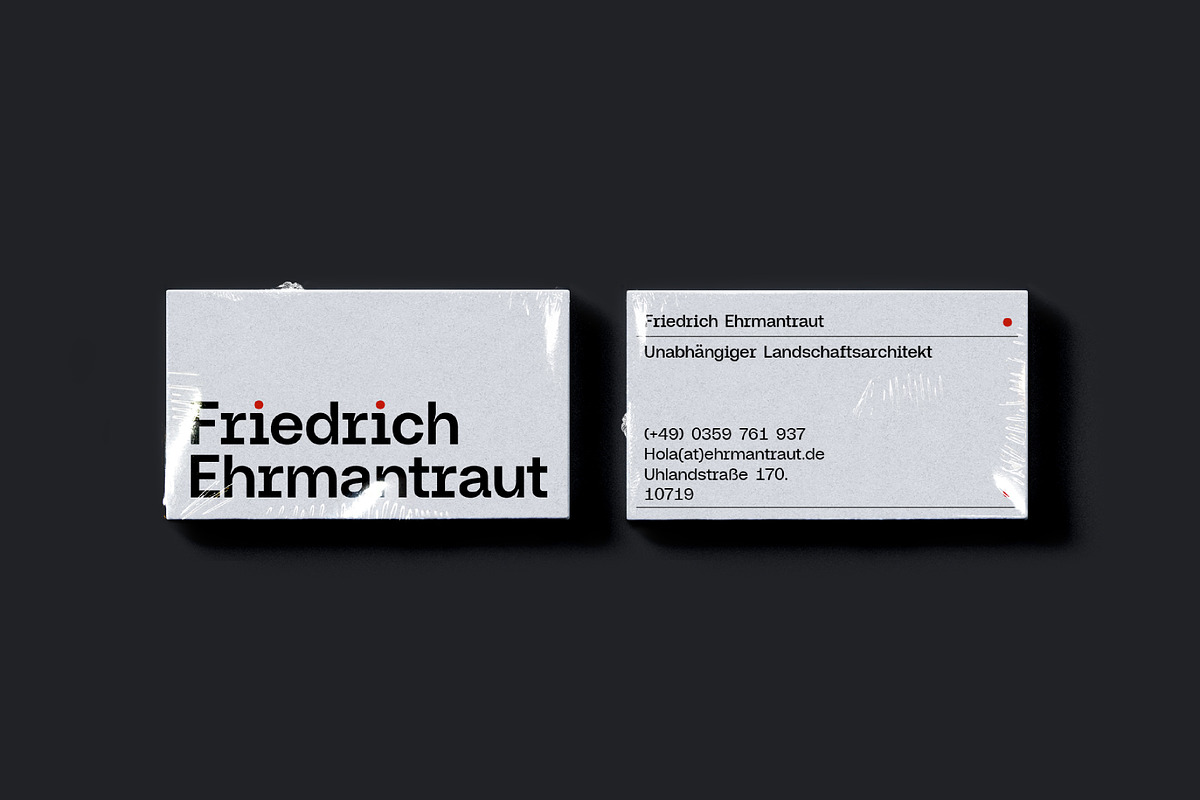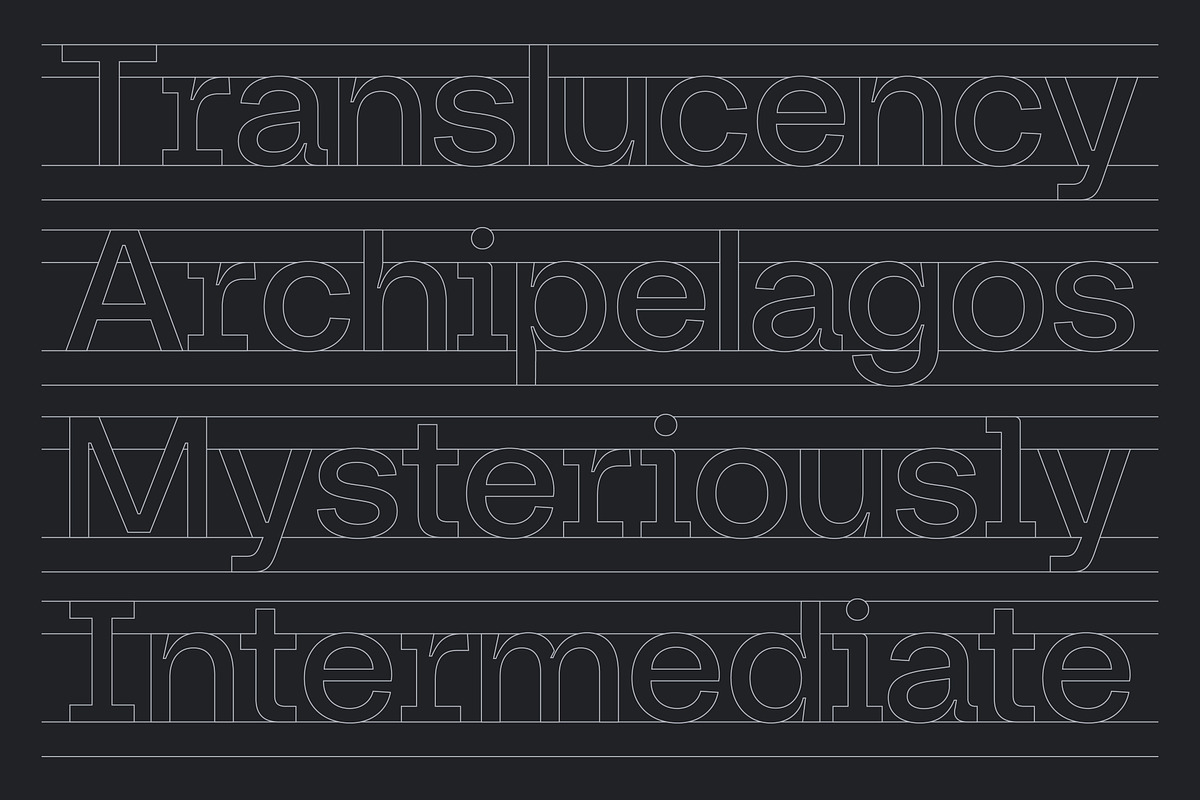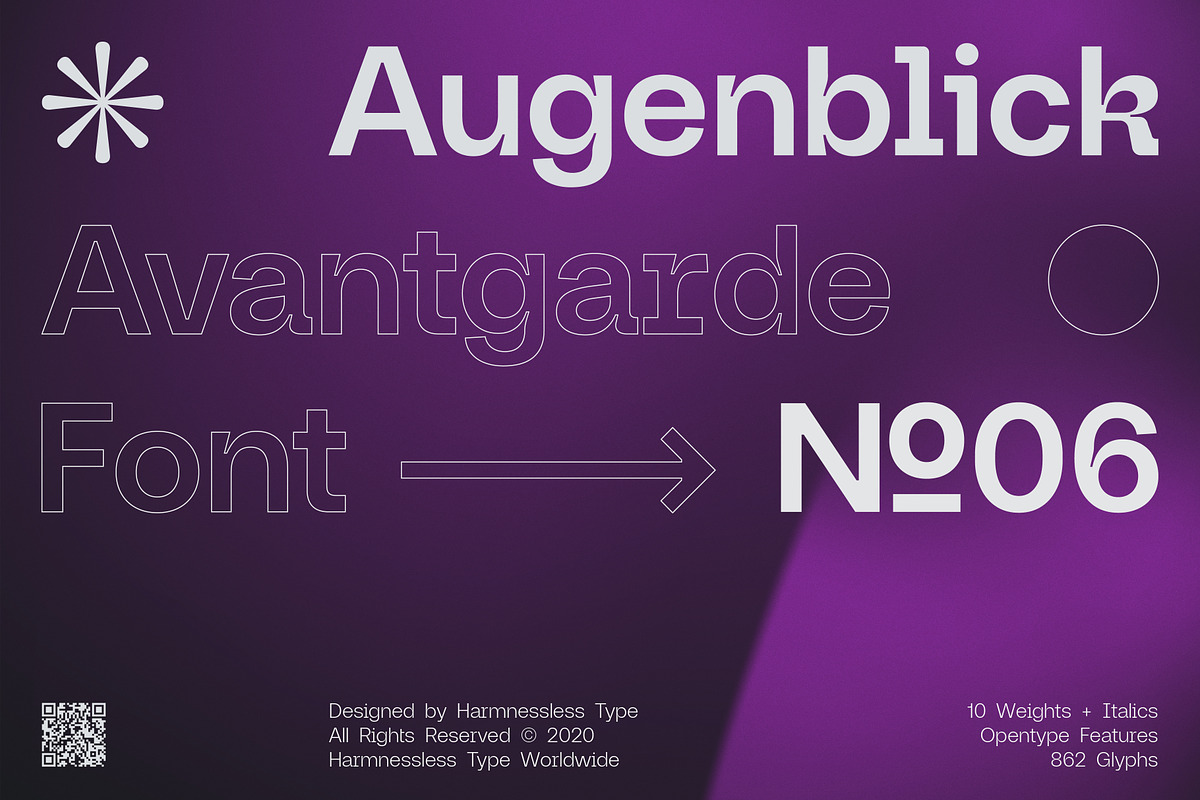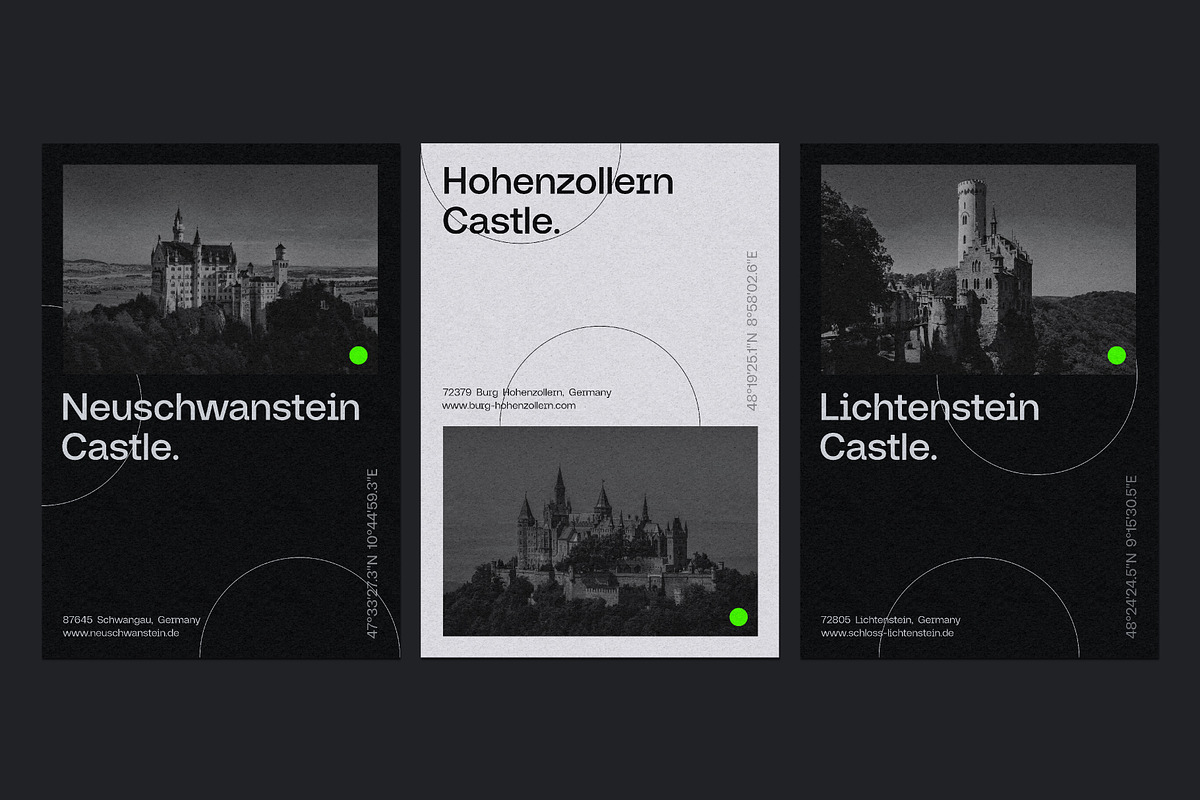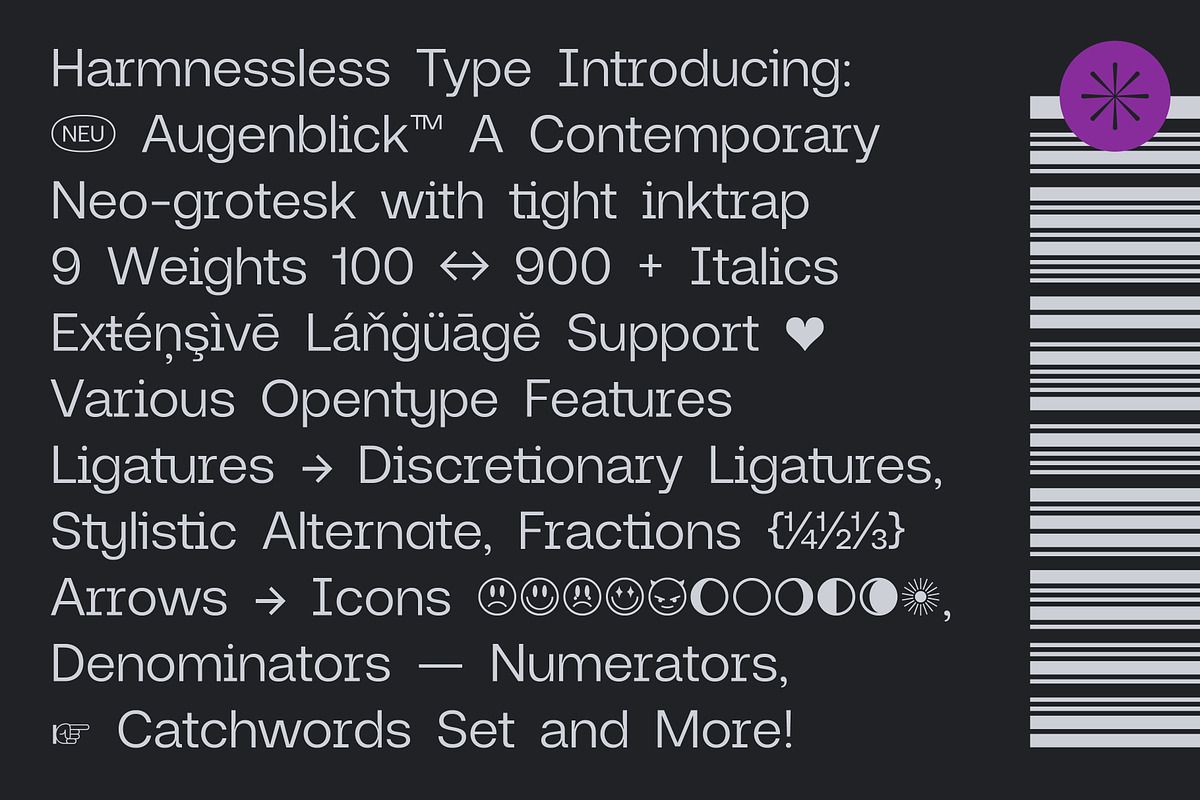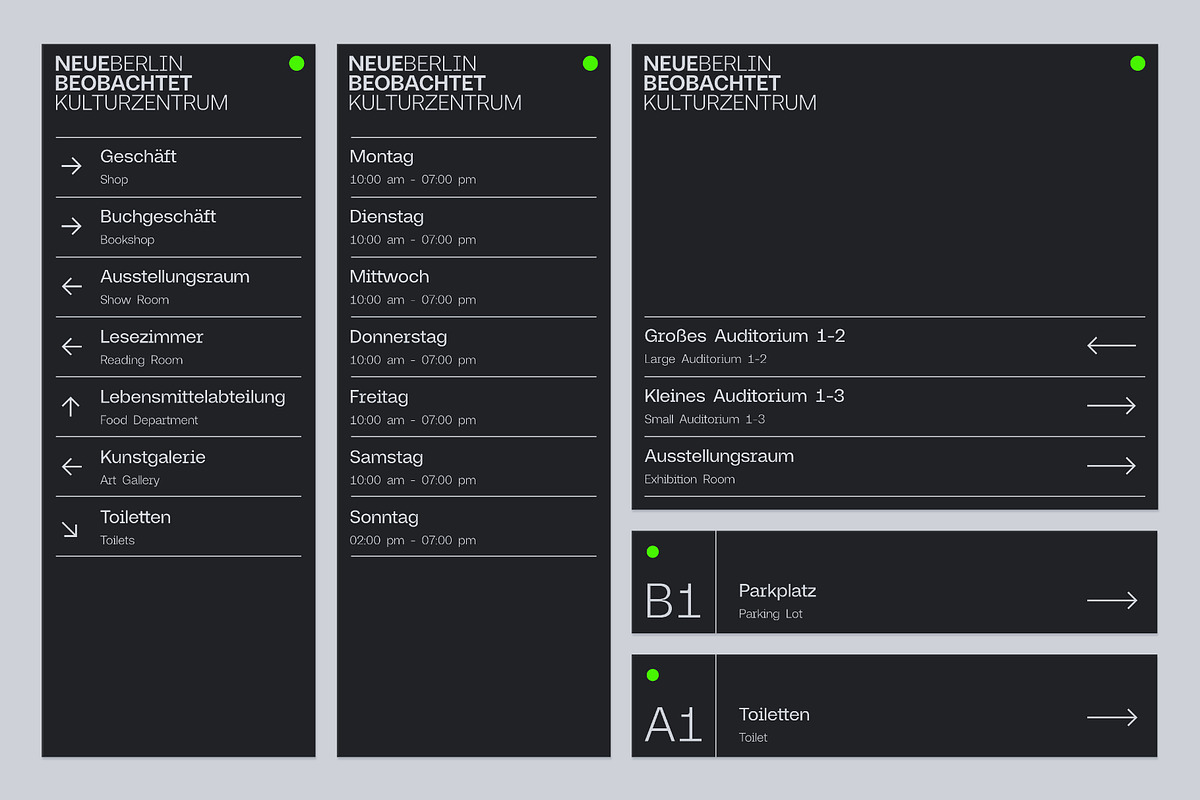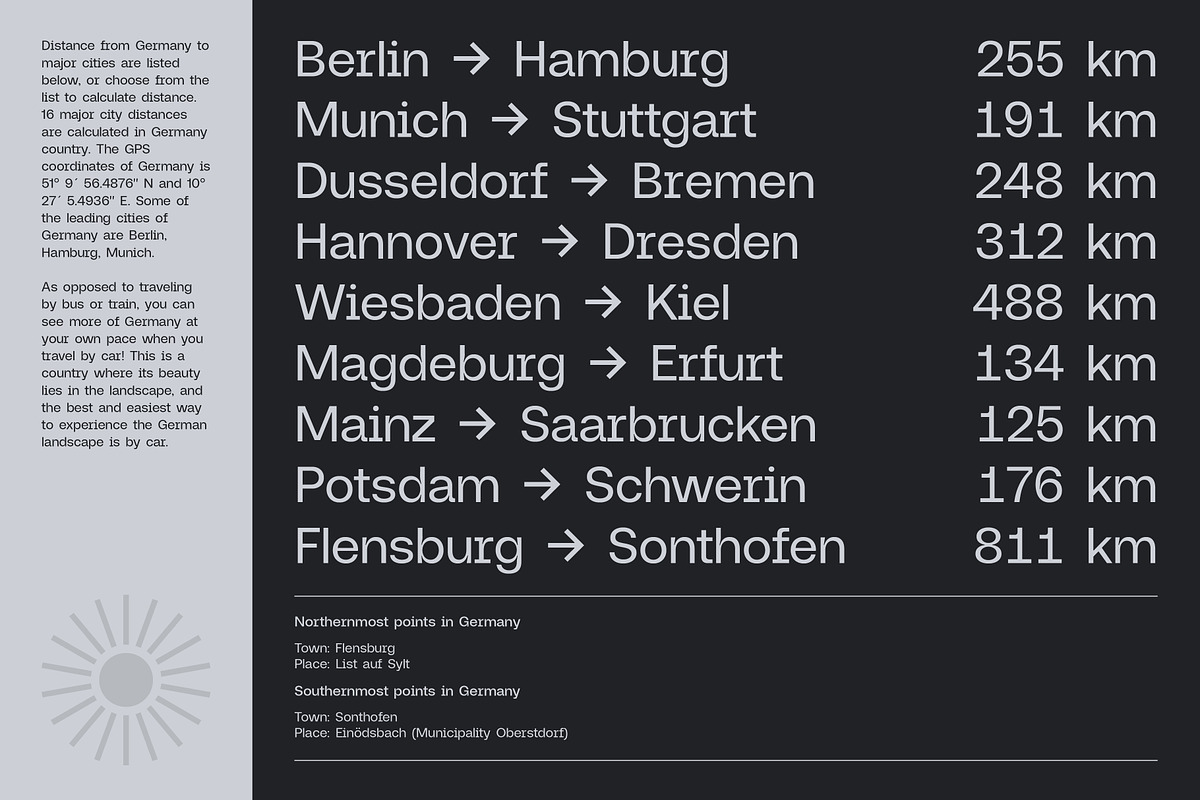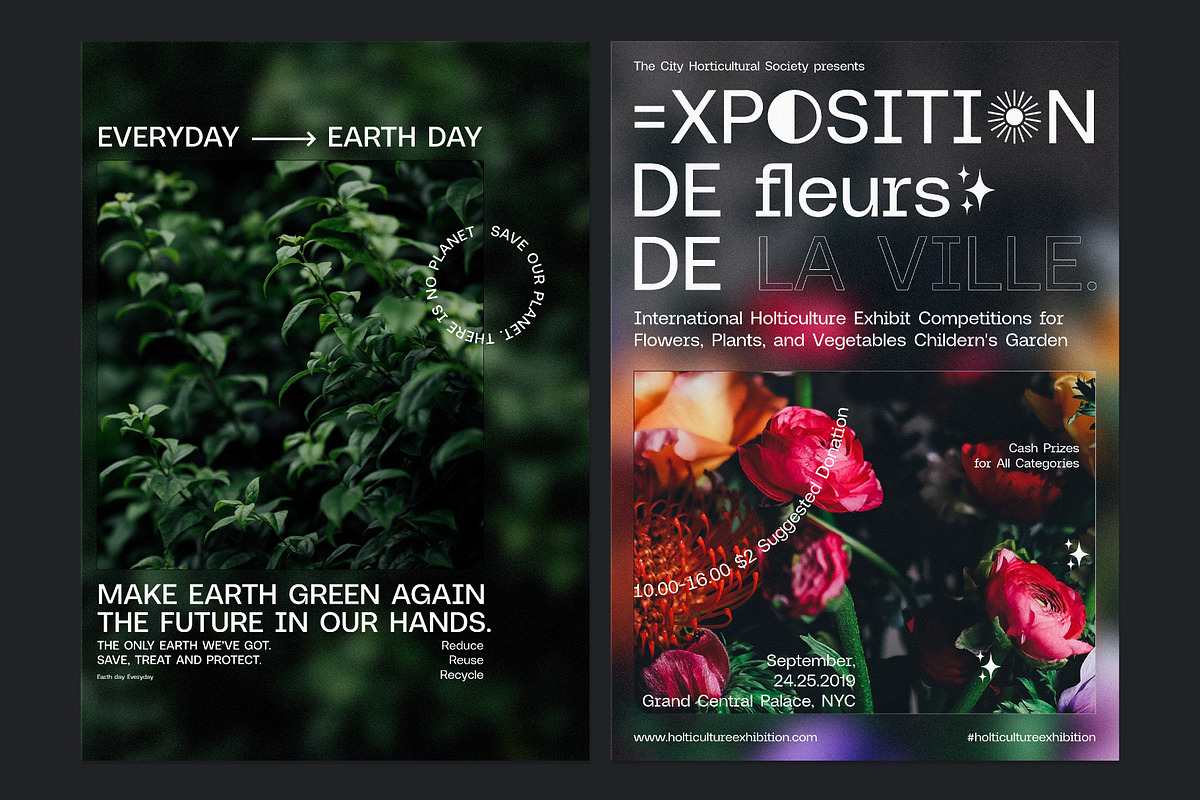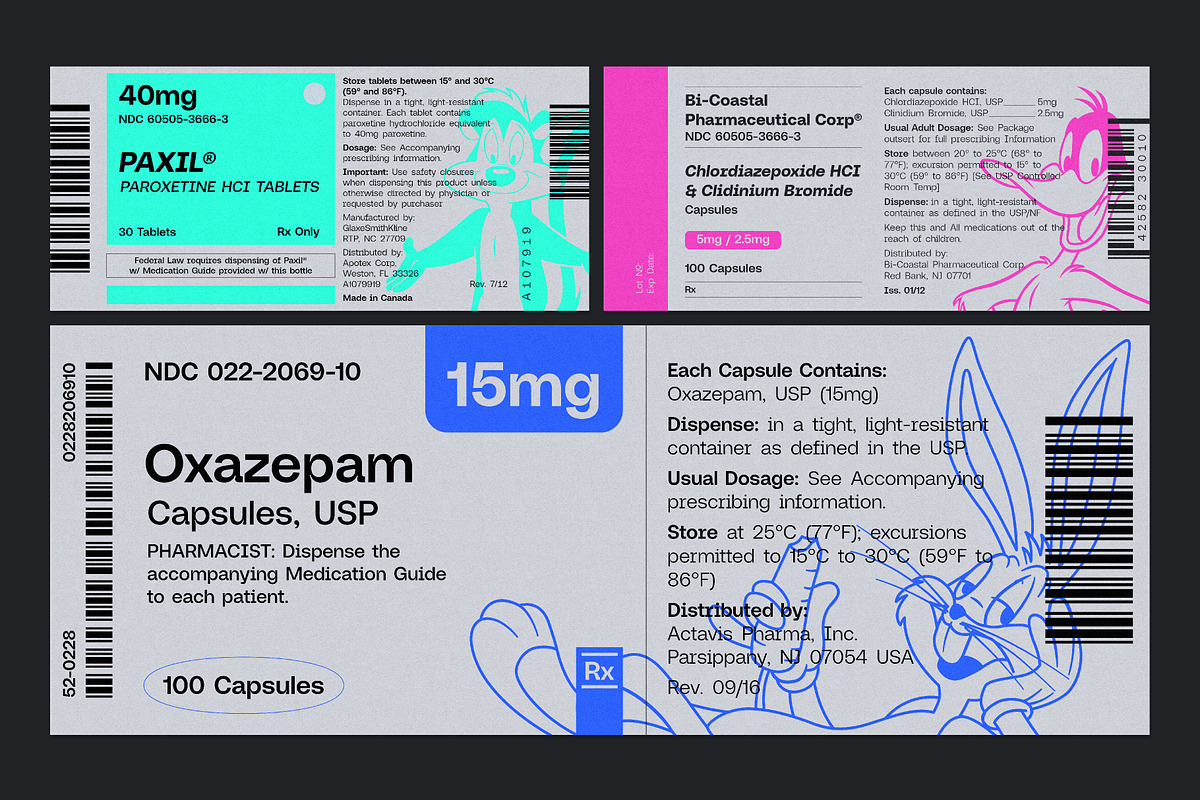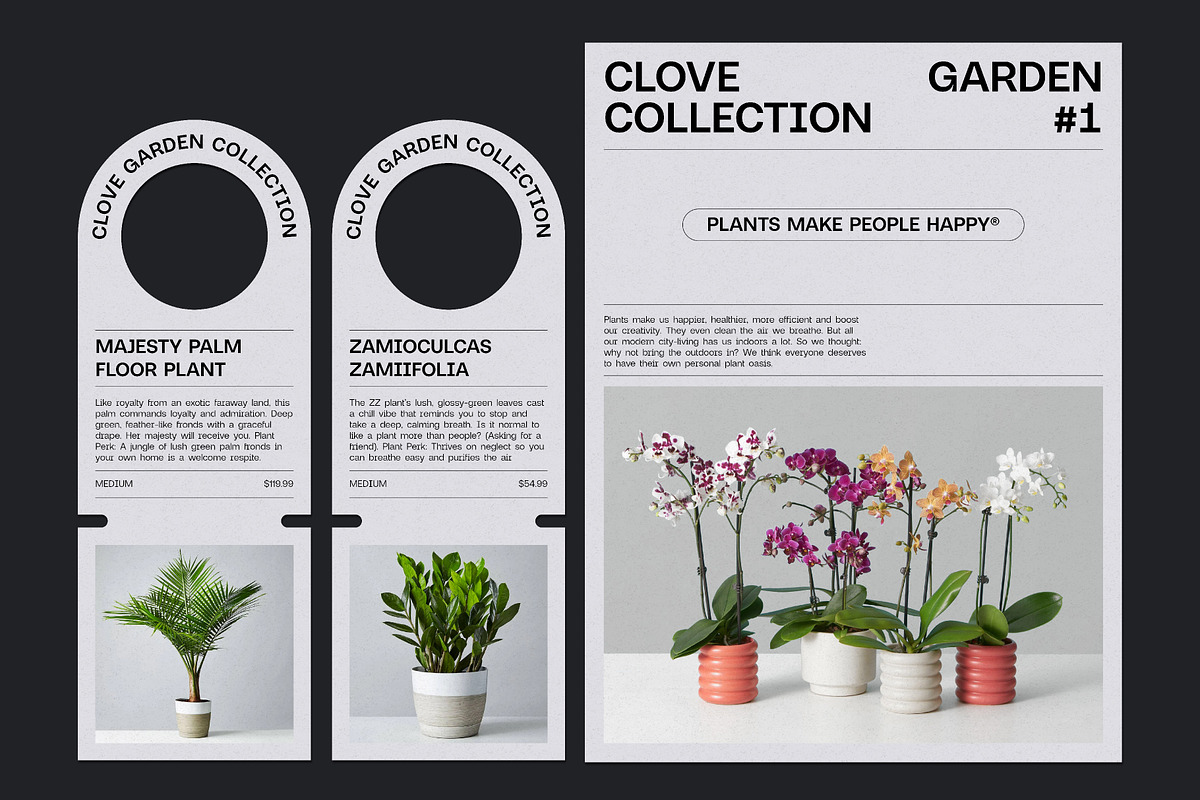
Neue Augenblick is a modern contemporary grotesk. This typeface carries a mechanical and industrial feel, that is inspired by the personality of the Panzerkampfwagen and Post-war Brutalist Architectural. There are ten weights, ranging from Thin to Black, each with oblique italics and plenty of alternates.
Neue Augenblick comes with attention-grabbing ink-traps make it feels more contemporary. Various opentype features from stylistic alternates, multilingual extended latin support, ligatures, discretionary ligatures, fractions, arrows, scientific numerals, catchwords set, icons and more. Neue Augenblick is suited for embrace both maximalism or minimalism design works for designers to play with.